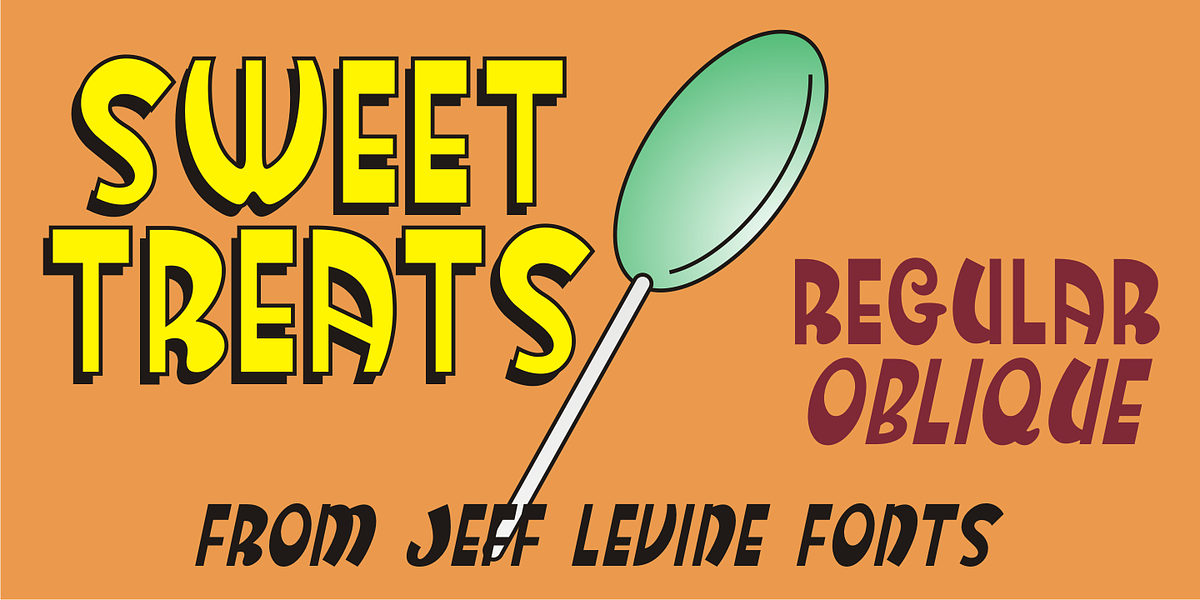
Sweet Treats JNL
A piece of British sheet music for “You’re Sweeter than I Thought You Were” [from the 1935 film “Jack of All Trades” starring Jack Hulbert] provided inspiration for a digital typeface based on the credits for Hulbert and the film that rather than the song’s title.
What’s interesting is the lettering style was influenced by Art Nouveau at a time when Art Deco was gaining in popularity.
The result is Sweet Treats JNL, which is available in both regular and oblique versions.
(According to Wikipedia, John Norman ‘Jack’ Hulbert (April 24, 1892 – March 25, 1978) was a British actor, director, screenwriter and singer, specializing primarily in comedy productions, and often working alongside his wife Cicely Courtneidge.)